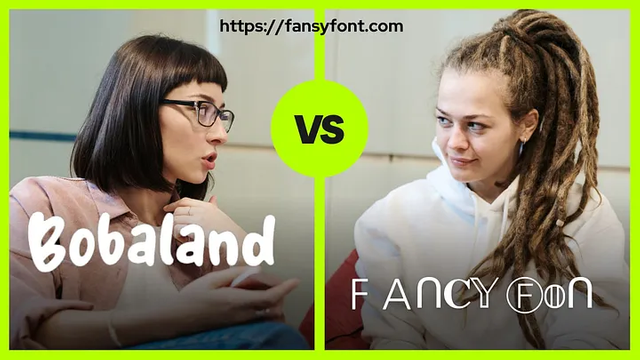
Bobaland fonts for Instagram
Bobaland fonts have become increasingly popular for Instagram users looking to add a unique and creative touch to their posts. With its wide range of quirky and eye-catching font styles, Bobaland offers endless possibilities for enhancing the visual appeal of Instagram content. From fun and playful fonts to elegant and sophisticated ones, Bobaland has something to suit every mood and aesthetic. Other aesthetic fonts help you generate exciting fonts, which are called fancy fonts. You can update these fancy fonts in your own instagram profiles. There are so many other kinds of fancy fonts, so you can generate instagram fonts to make your profile attractive. You can generate aesthetic fonts like mirror, reverse, and many other horror fonts with the instagram font generator tool.
One of the main reasons Bobaland fonts have gained such popularity on Instagram is their ability to grab attention in a crowded feed instantly. With thousands of posts being uploaded every minute on the platform, it can be challenging for users to stand out from the crowd. However, by utilizing the distinct font styles offered by Bobaland, Instagrammers can easily capture viewers’ gaze as they scroll through their feeds.
Additionally, using Bobaland fonts allows individuals to express their personality and creativity in new ways. Each font style has its unique character that conveys a specific vibe or emotion. Whether someone wants to evoke whimsy with a curly script font or exude minimalism with a sleek sans-serif typeface, there is no shortage of options available with Bobaland fonts. This versatility enables users to tailor their typographic choices according to the message they want to convey or add an extra layer of visual interest that reflects who they are as individuals.